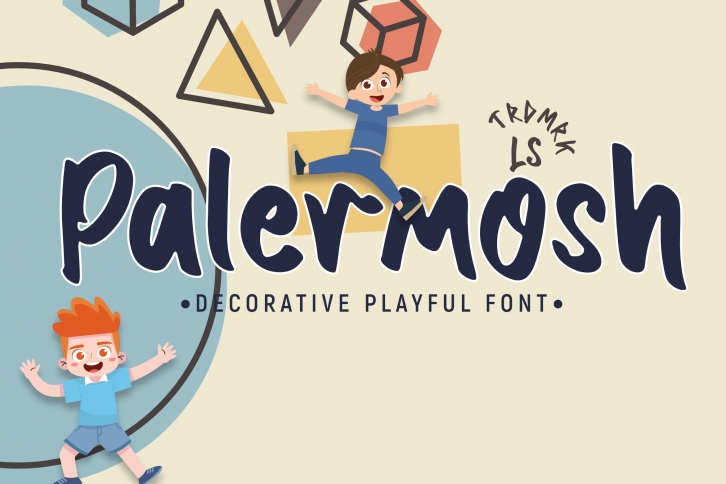
Palermosh is a great font that was designed by Gumacreative. Imagine the amount of combinations you can create using this font! The archive is 15.37 MB and it was released on February 20, 2021. Palermosh looks beautiful on wedding invitations, greeting cards, logos, posters, labels, t-shirt designs, logos, business cards and is perfect for use in ink or watercolor works, fashion, magazines, packaging and food menus, children's books and more!